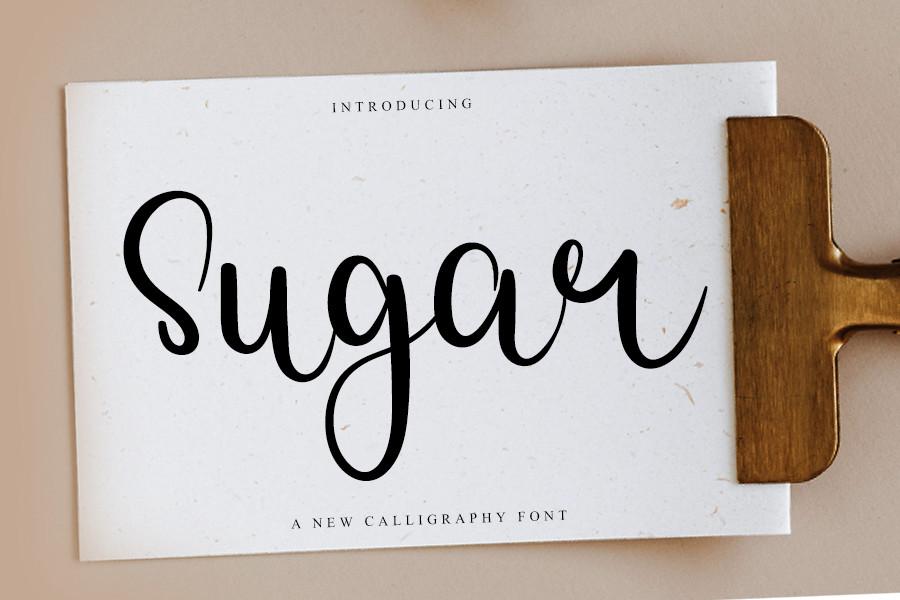
Sugar Font Description
Sugar is a stylish handwritten font with a contemporary atmosphere and impeccable form, inspired by a timeless classic calligraphy. Not too thin and not too thick, balanced and varied, this font was designed to enhance the beauty of your projects. Fall in love with it and bring your designs to the highest level!